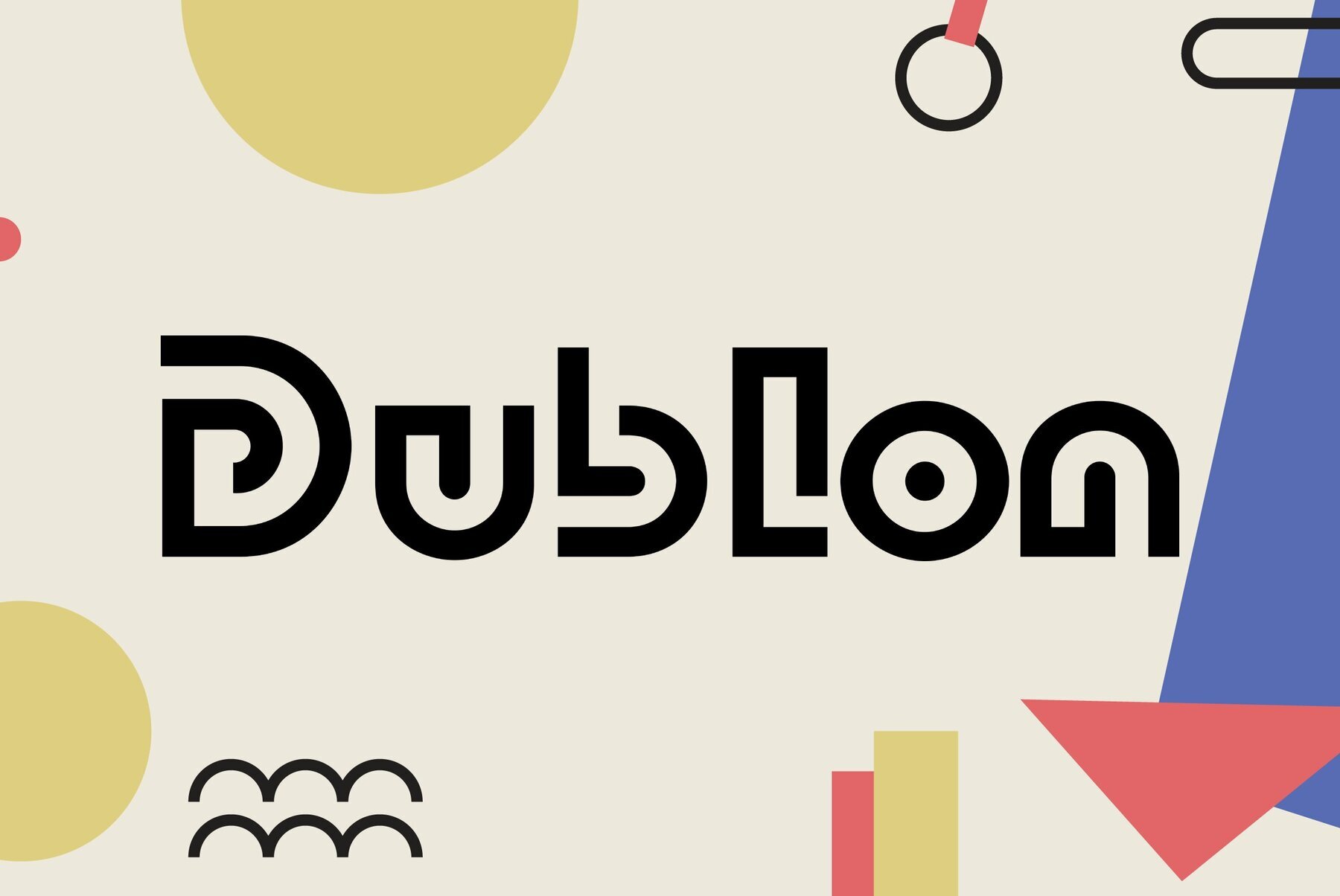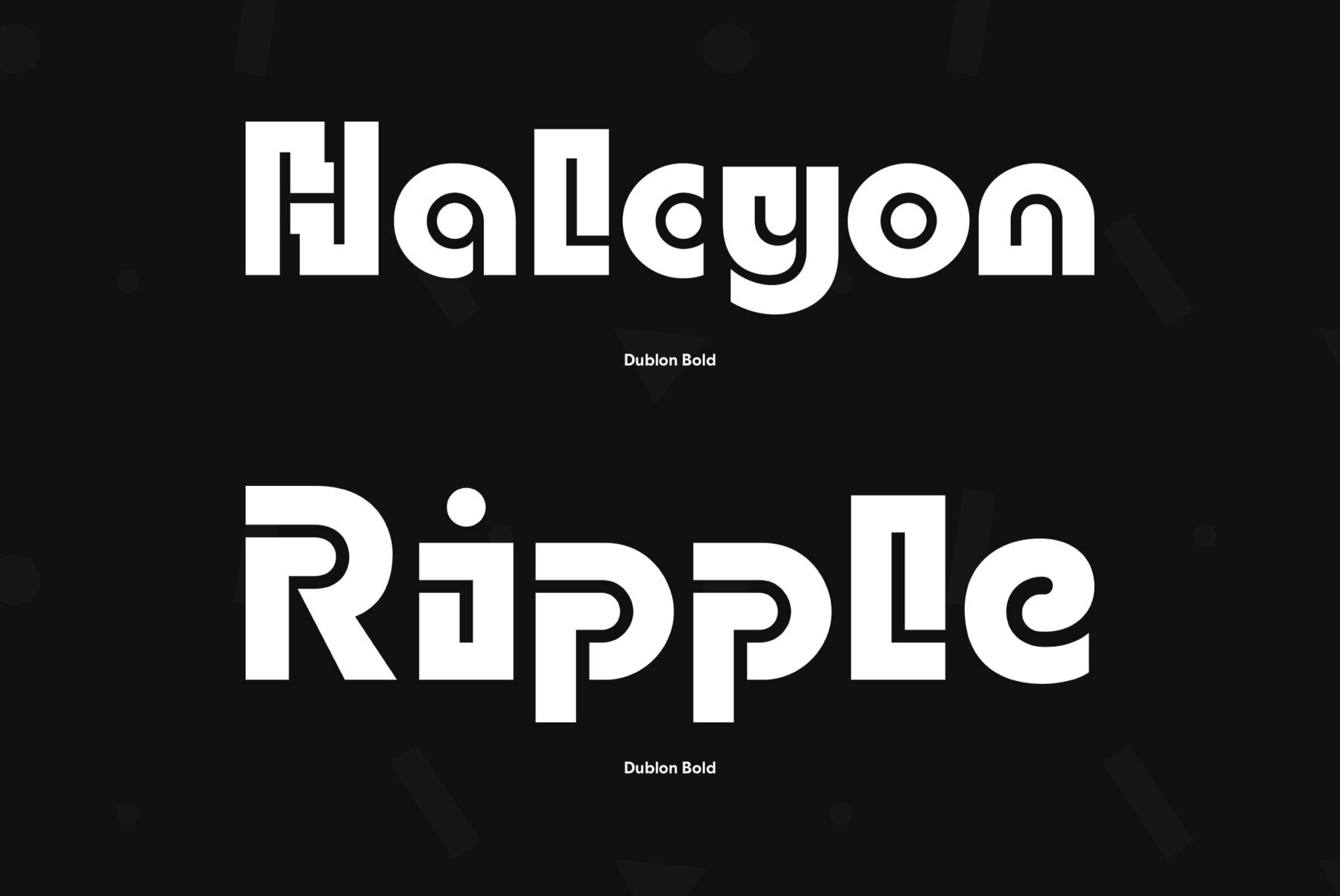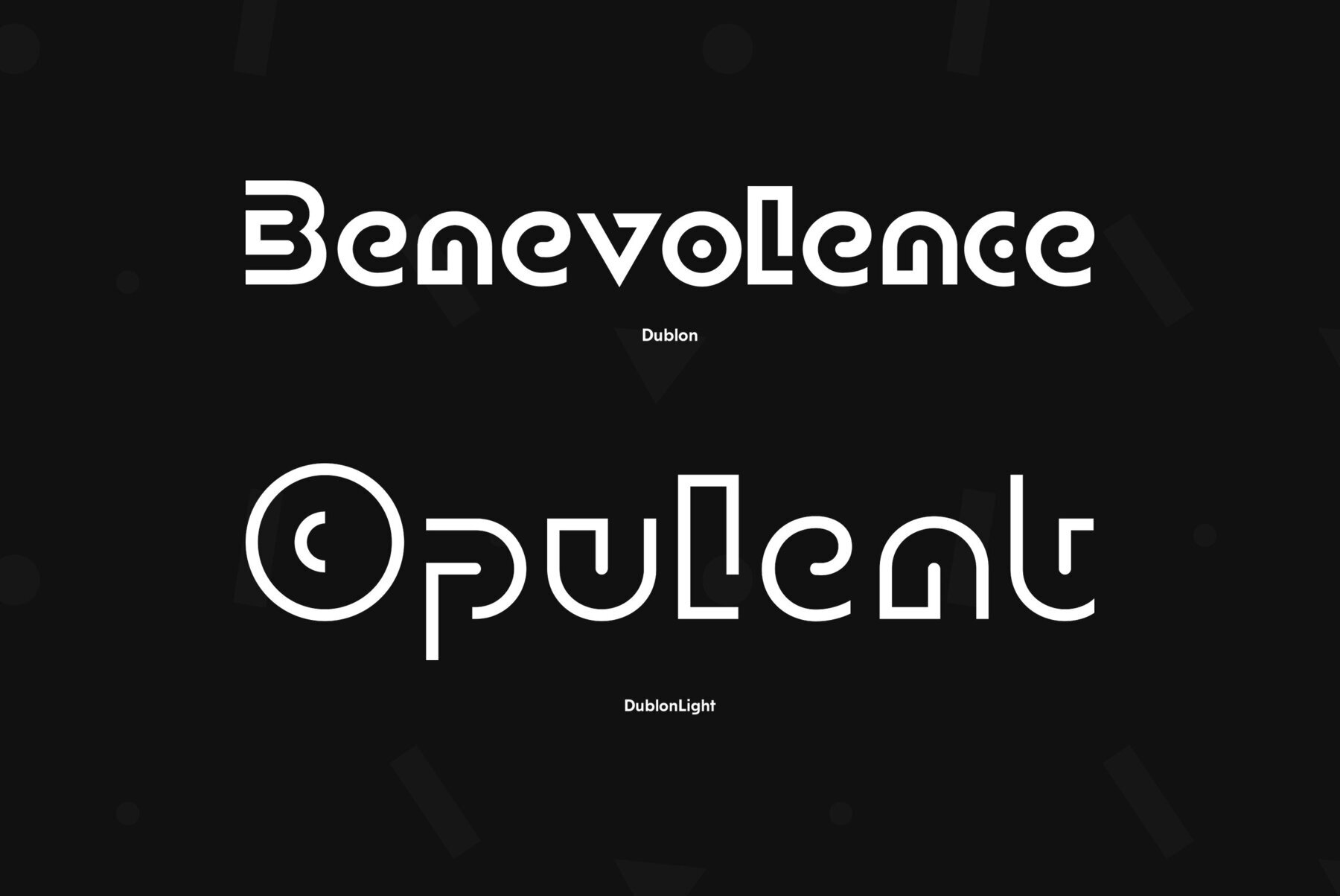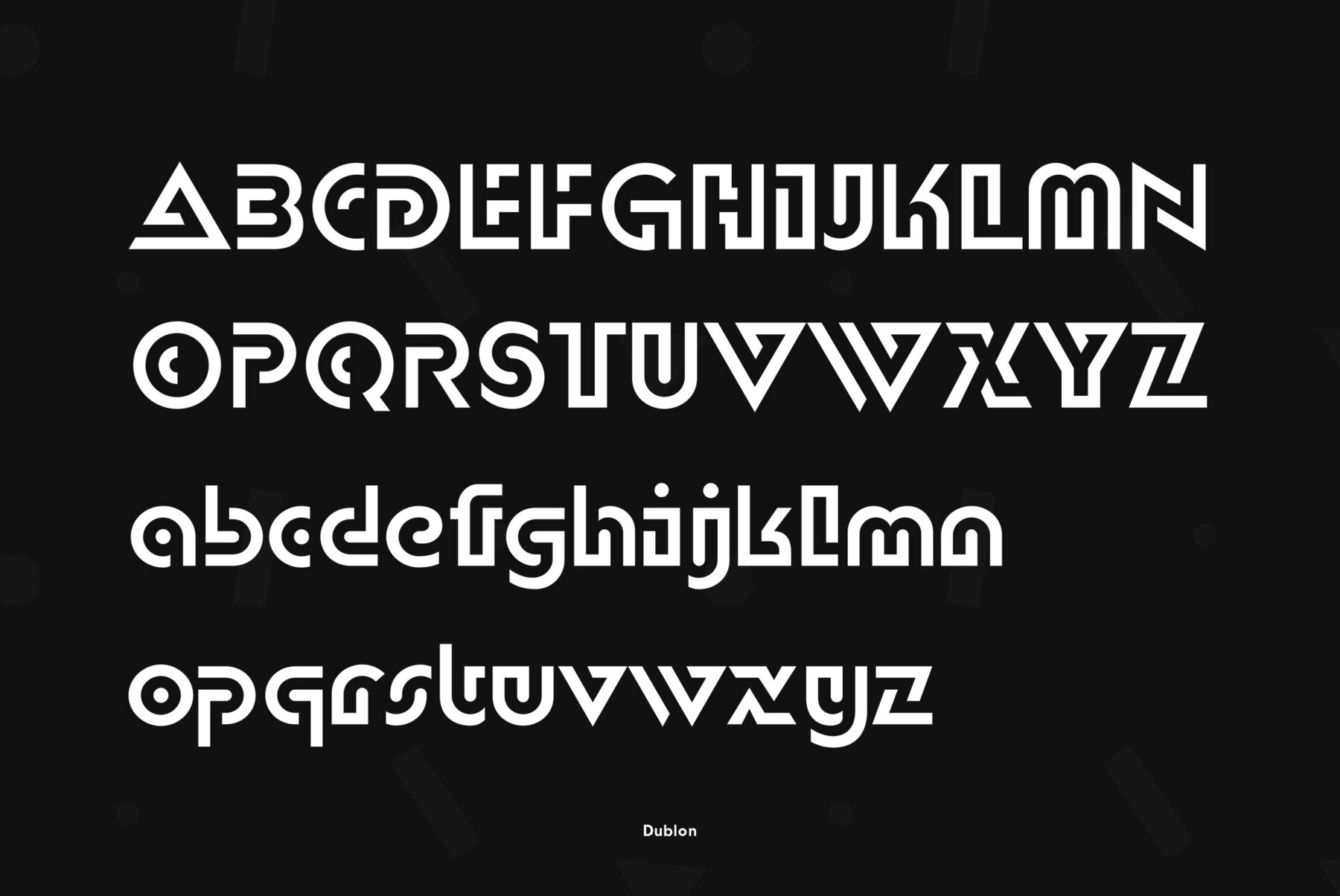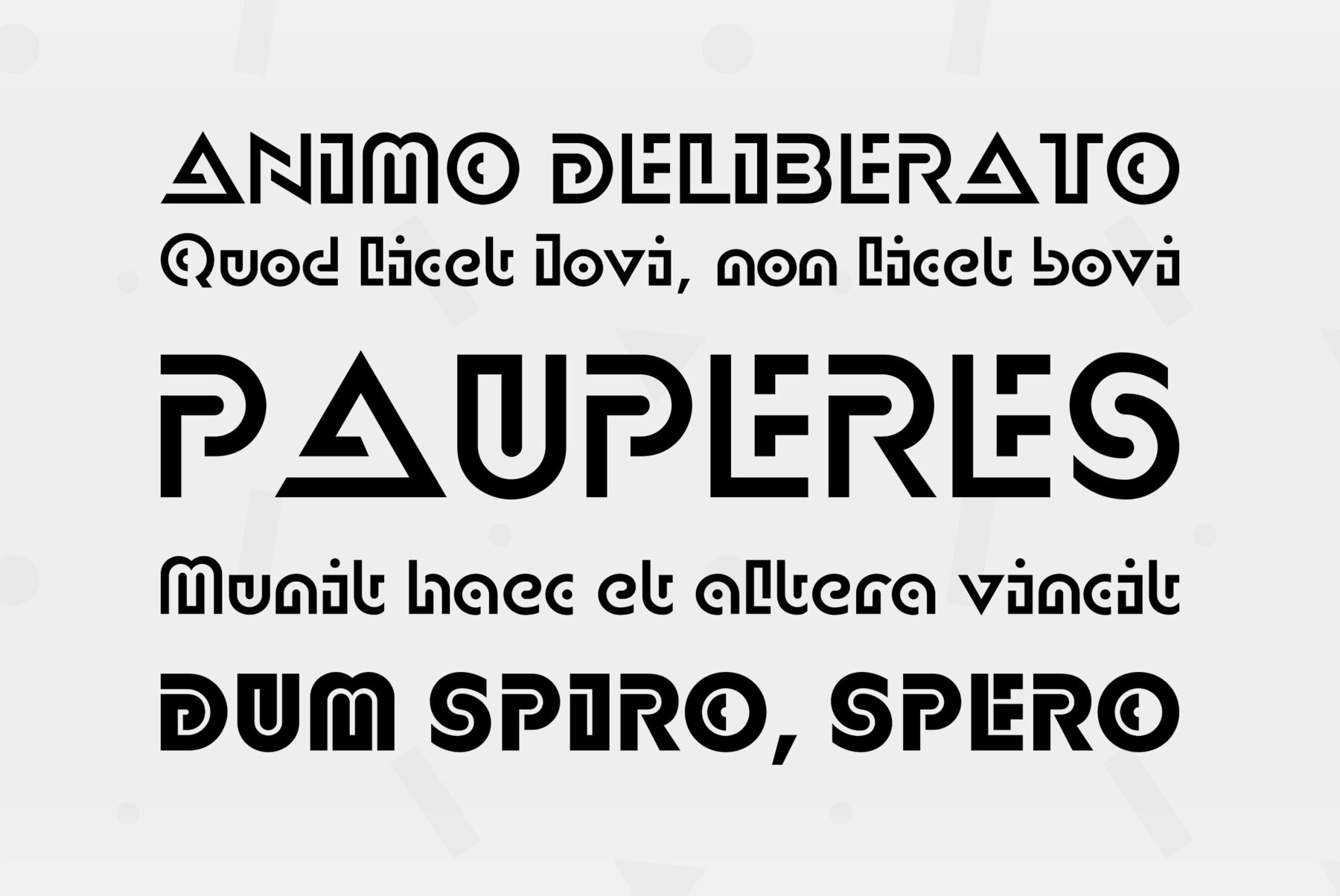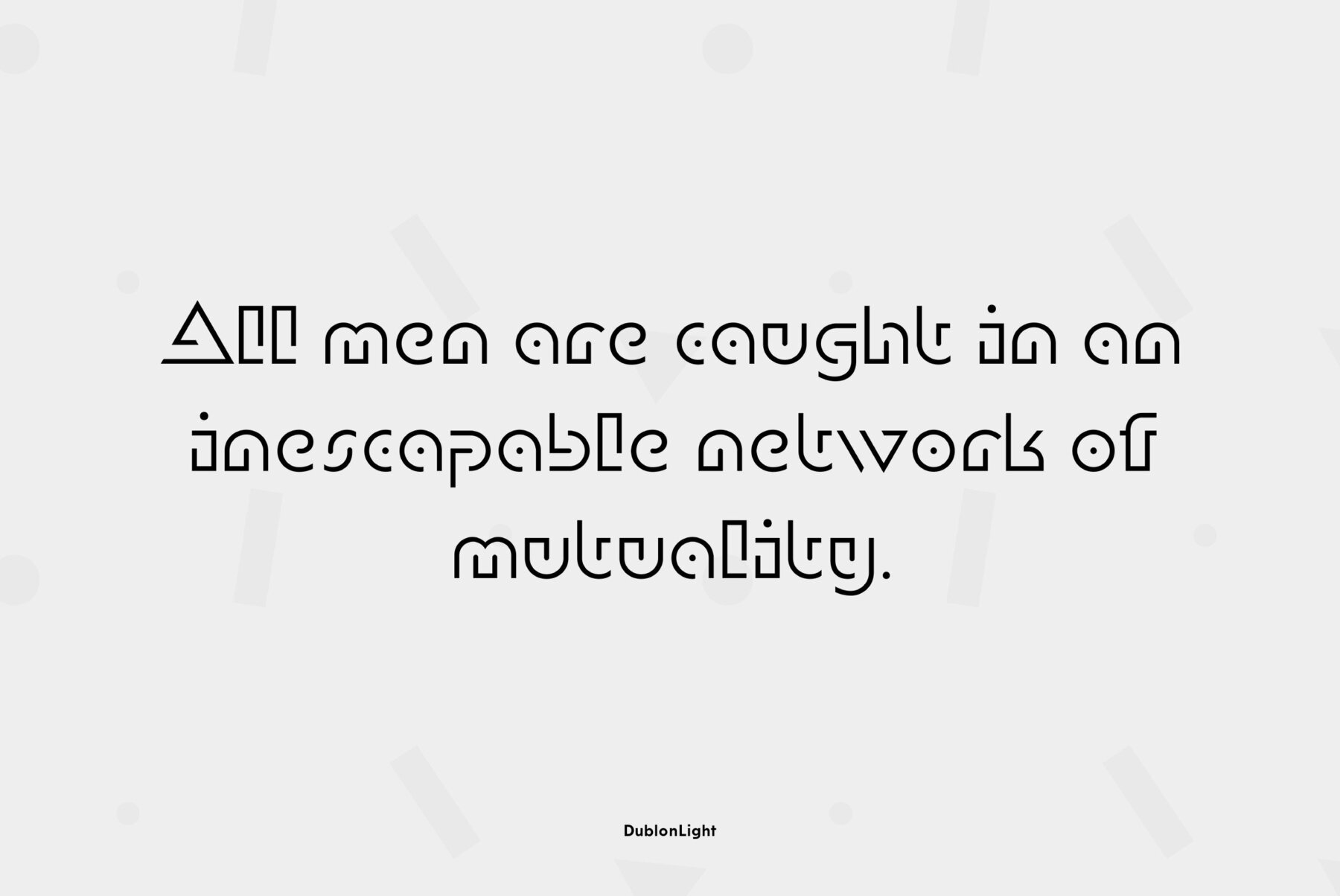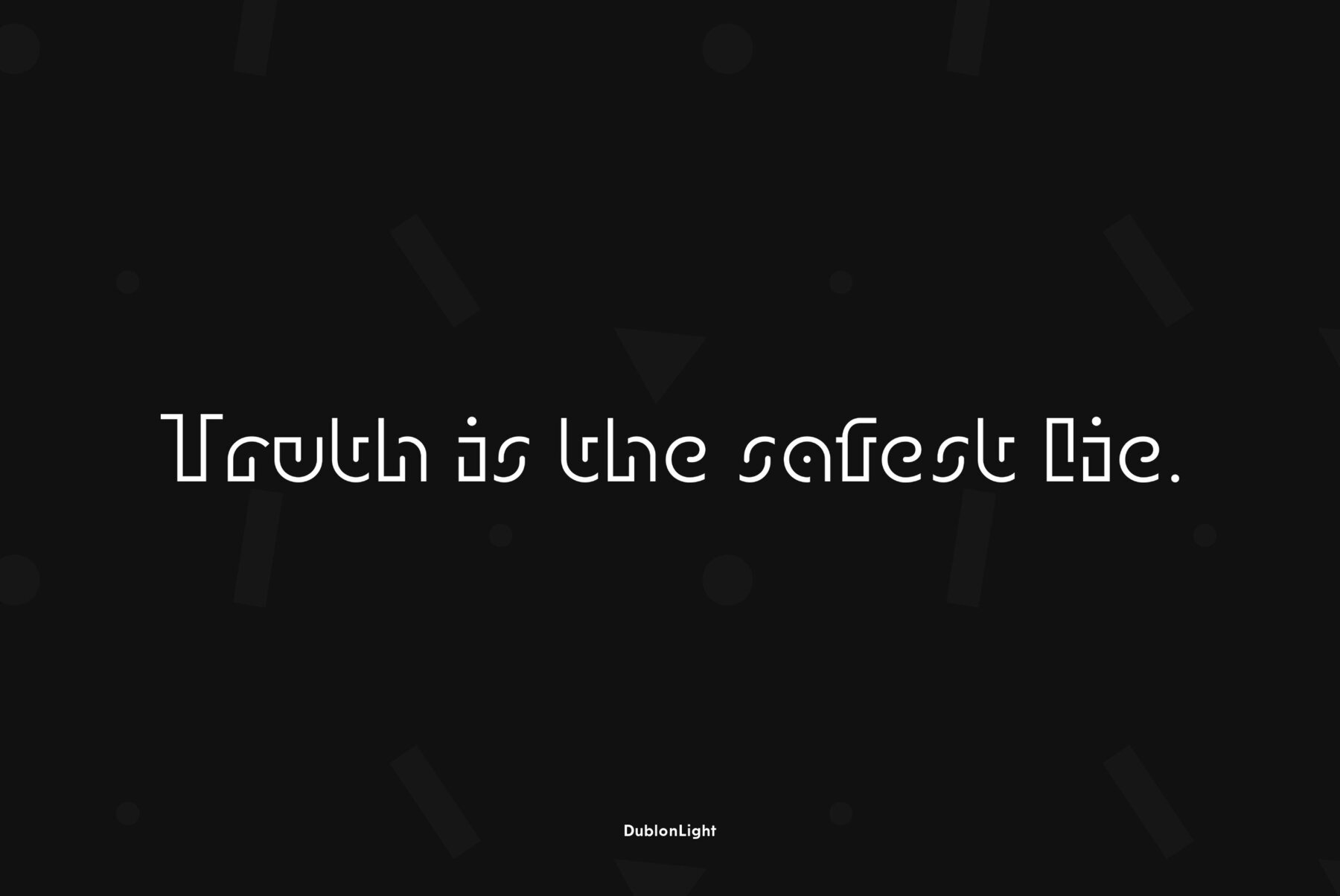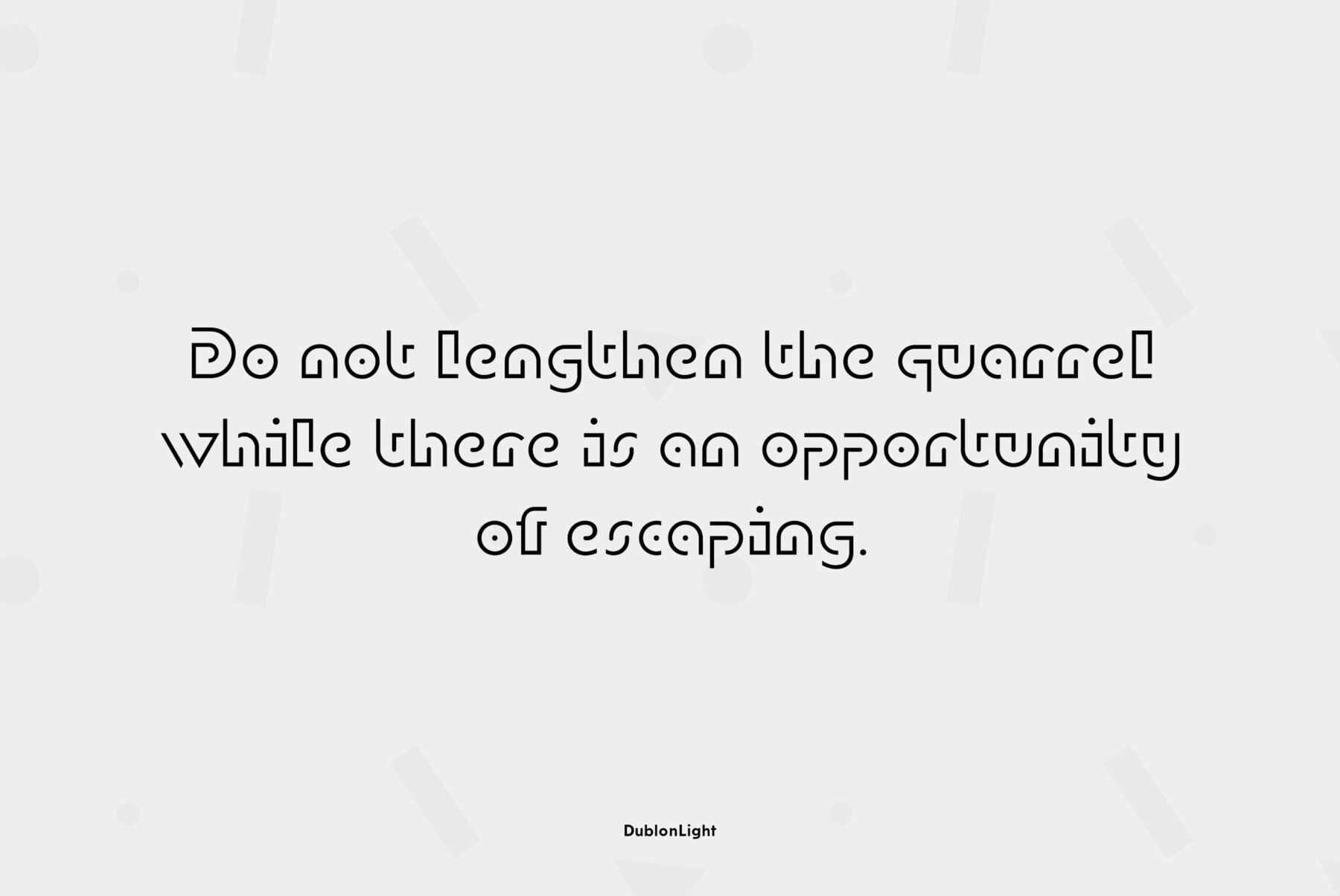
The typeface was designed for ParaType (ParaGraph) in 1994 by Oleg Karpinsky basing on his original artwork. A decorative face in Op-Art style. For use in advertising and display typography.